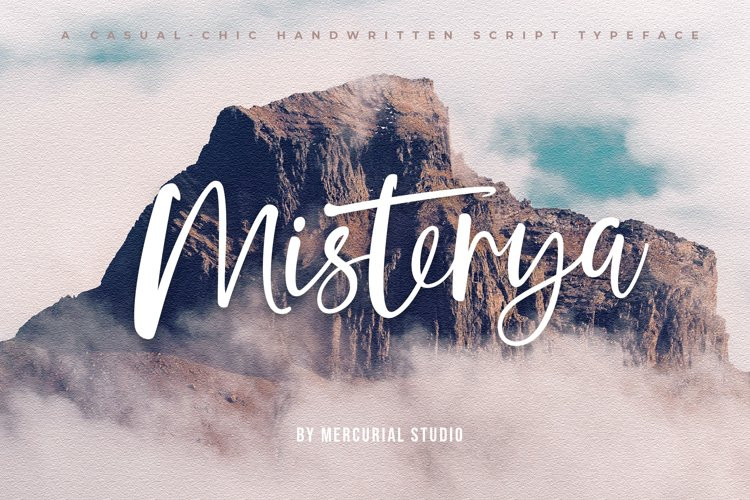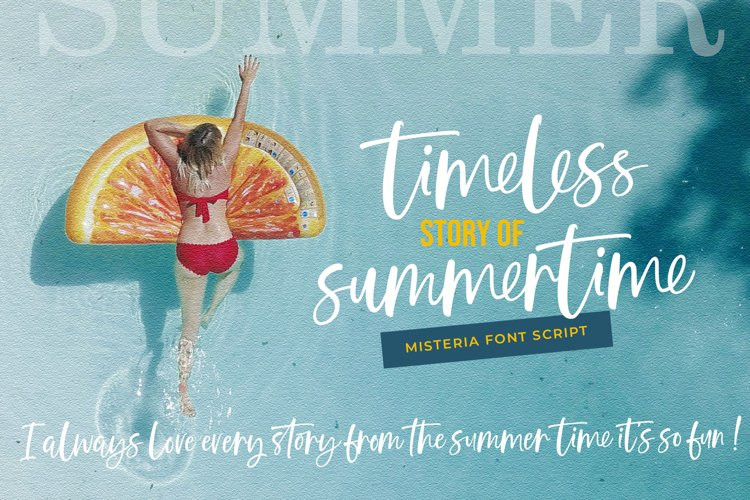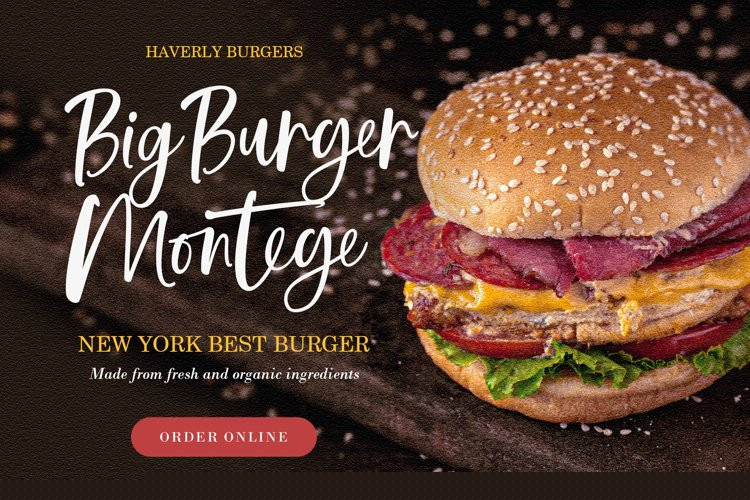
Misterya Font
Misterya FontMisterya an enchanting handwritten script typeface with exquisite accents, casual-chic, perfect for you who want a perfect and fabulous font!
Suitable for many design projects such as logo design, branding, packaging, blog graphics, stylizing quotes, wedding stationery, art prints, collateral design, packaging, social media, and so on. I’ve truly enjoyed the process of creating this font collection and hope that it will bring some magic into your projects!